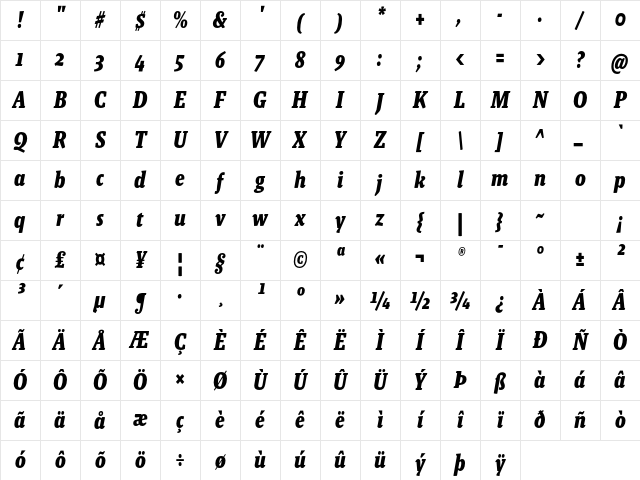
Malaga Narrow OT Bold Italic
Foundry: Emigre Inc.
Designer: Xavier Dupre
Design Context for Malaga Narrow OT
Malaga Narrow OT is a composed and adaptable typeface that performs quietly and consistently across a wide range of design contexts. The slanted form adds forward momentum and visual energy. Its bold stroke weight gives it real presence on the page. Its narrow stance lets it pack a punch even in space-constrained designs.
Pro Tip: Use Malaga Narrow OT for emphasis, pull quotes, and subheadings where its slanted energy can add rhythm to the layout.